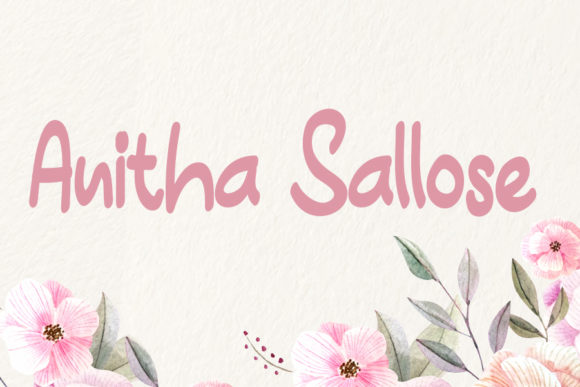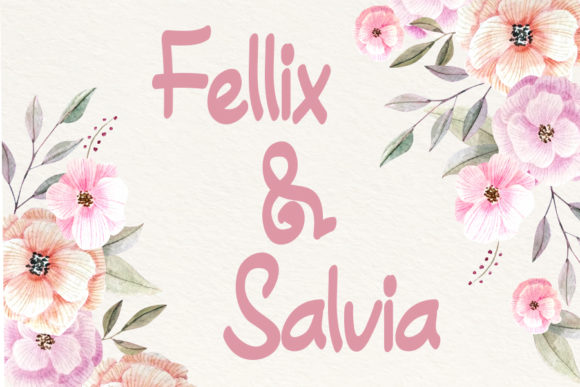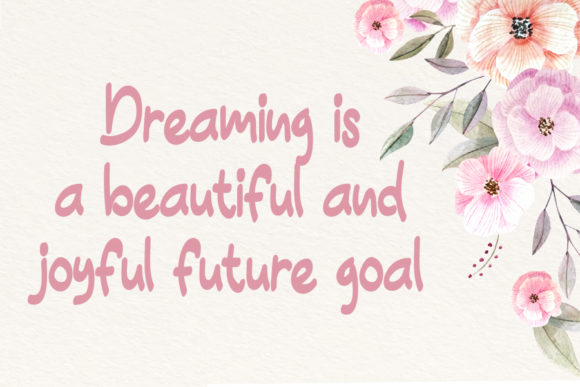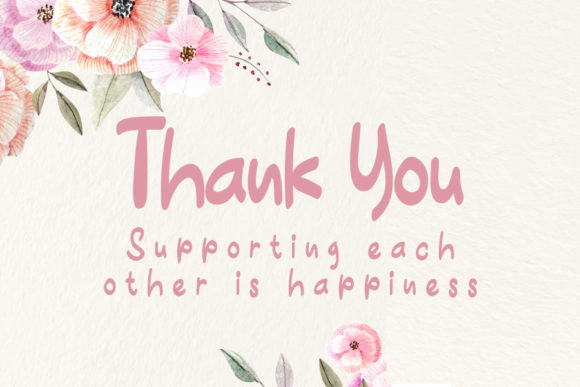
Introduction to Amelltanie Font
Amelltanie is a sweet display font.
The playful rounded characters make it the perfect font for creating stunning designs Get inspired by its authentic feel and use it to create gorgeous wedding invitations, beautiful stationary art, eye-catching social media posts, and cute greeting cards.